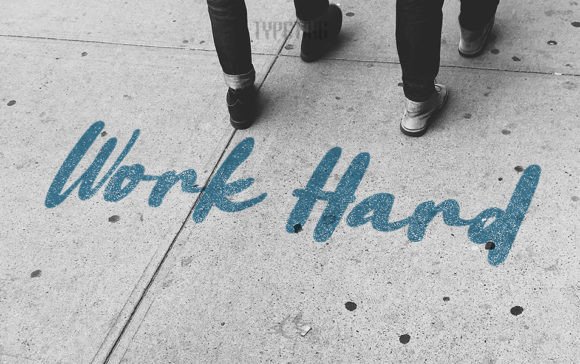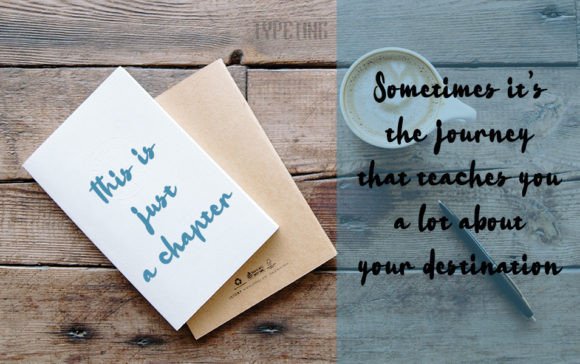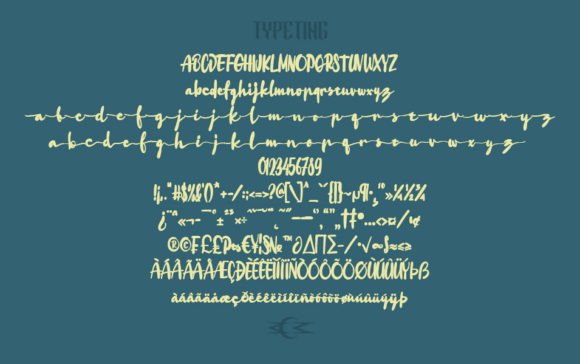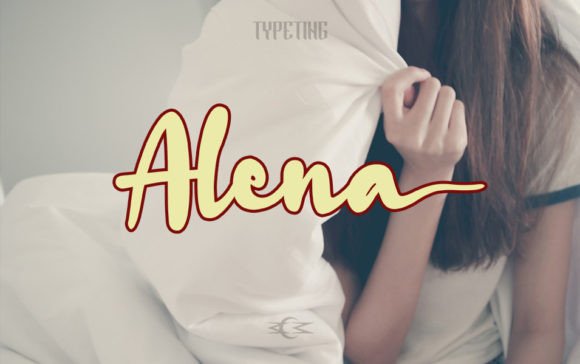
Introducing Alena Font: The Cute and Casual Handwritten Font for Creative Projects
Are you a designer, crafter, or DIY enthusiast looking for a font that can add a personal touch to your creative projects? Look no further than Alena Font, a beautiful and versatile handwritten font that’s perfect for a wide range of applications. In this article, we’ll take a closer look at Alena Font, its features, and how it can elevate your designs to the next level.
What is Alena Font?
Alena Font is a cute and casual handwritten font that’s designed to bring a touch of warmth and personality to your creative projects. Whether you’re working on a graphic design project, crafting a handmade card, or creating a blog post, Alena Font is an incredible asset to your fonts collection. Its unique and charming lettering style makes it perfect for a wide range of topics, from fashion and beauty to food and travel.
Key Features of Alena Font
So, what makes Alena Font so special? Here are some of its key features:
- Cute and Casual Design: Alena Font has a playful and informal design that’s perfect for creative projects that require a personal touch.
- Handwritten Style: The font has a beautiful handwritten style that’s reminiscent of handwritten notes and letters.
- Versatile: Alena Font can be used for a wide range of applications, from digital projects to print materials.
- Easy to Read: The font is clear and easy to read, making it perfect for body text and headings.
How to Use Alena Font in Your Creative Projects
Alena Font is a versatile font that can be used in a variety of creative projects. Here are some ideas to get you started:
- Graphic Design Projects: Use Alena Font to add a personal touch to your graphic design projects, such as brochures, flyers, and posters.
- Handmade Cards and Crafts: Alena Font is perfect for handmade cards, gift tags, and other crafts that require a personal touch.
- Blog Posts and Social Media: Use Alena Font to add a touch of personality to your blog posts and social media graphics.
- Branding and Packaging: Alena Font can be used to create custom branding and packaging materials, such as labels and stickers.
Tips for Using Alena Font Effectively
Here are some tips for using Alena Font effectively in your creative projects:
- Pair it with Other Fonts: Alena Font can be paired with other fonts to create a unique and interesting contrast.
- Experiment with Colors: Try using Alena Font with different colors to add a pop of personality to your designs.
- Use it for Headings and Titles: Alena Font is perfect for headings and titles, where its playful and informal design can really shine.
In conclusion, Alena Font is a beautiful and versatile handwritten font that’s perfect for designers, crafters, and DIY enthusiasts. Its cute and casual design makes it an incredible asset to your fonts collection, and its versatility means it can be used for a wide range of creative projects. Whether you’re working on a graphic design project, crafting a handmade card, or creating a blog post, Alena Font is sure to bring a touch of personality and charm to your designs.